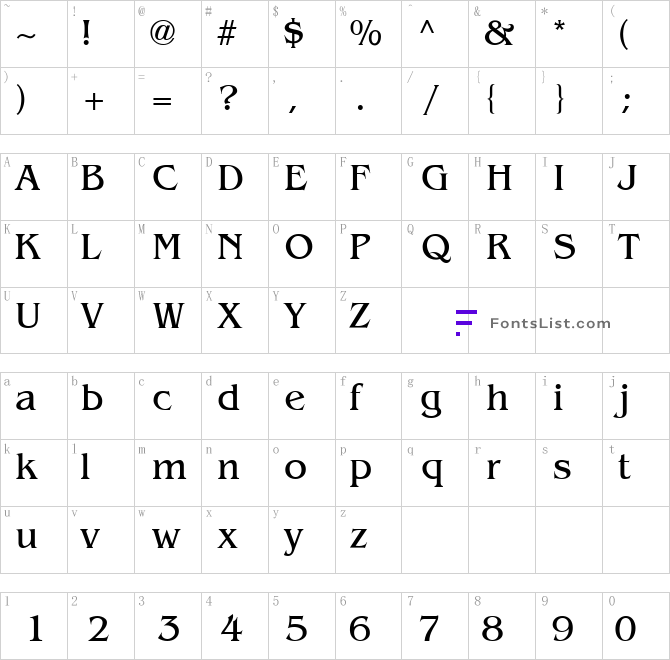
- Font Name:Bangkok
- Subfamily:Monotype:Bangkok Regular:version1(Corel)
- Full Name:Bangkok
Bangkok.ttf is a very beautiful artistic font, Bangkok.ttf is widely used in the design and printing of various books and pictures,Bangkok.ttf has a strong visual impact,Bangkok.ttf is a commonly used font in newspapers, magazines and books, and is used in posters, e-commerce Poster design, store design, logo design, font design and other fields.Bangkok.